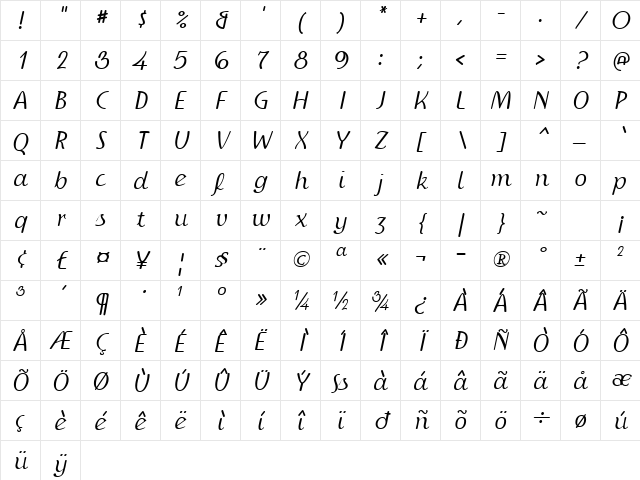
IngrianaCasual is a composed and adaptable typeface that performs quietly and consistently across a wide range of design contexts. The slanted form adds forward momentum and visual energy.
Pro Tip: Use IngrianaCasual for emphasis, pull quotes, and subheadings where its slanted energy can add rhythm to the layout.